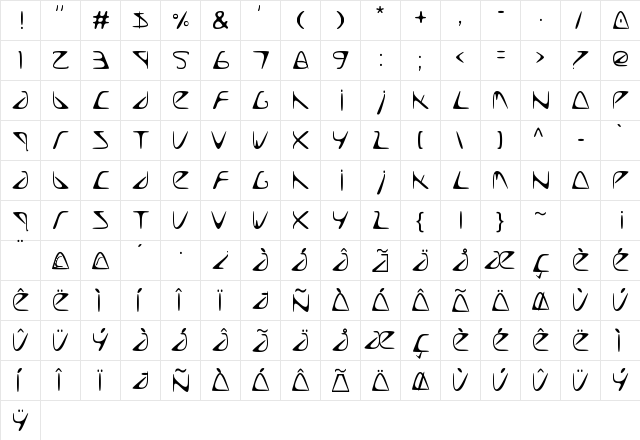
Too Late Regular
Design Context for Too Late Typeface
Too Late is a composed and adaptable typeface that performs quietly and consistently across a wide range of design contexts.